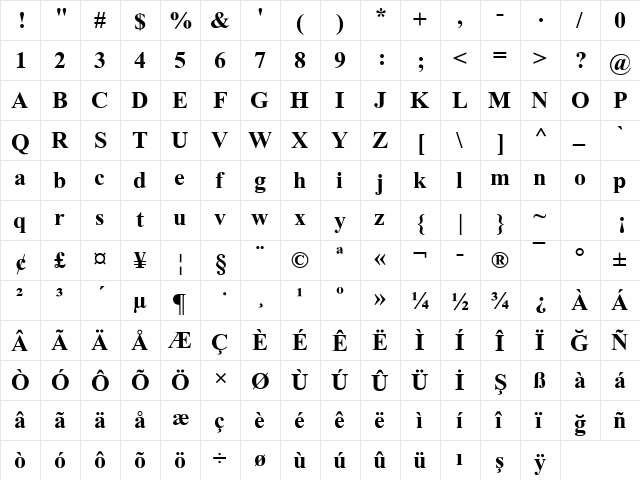
Turkish Times New Roman Bold Font Preview
Turkish Times New Roman Bold
Design Context for Turkish Times New Roman Typeface
Turkish Times New Roman offers clean, dependable letterforms without strong stylistic allegiance, making it a practical choice for designers who need flexibility. Its bold stroke weight gives it real presence on the page.